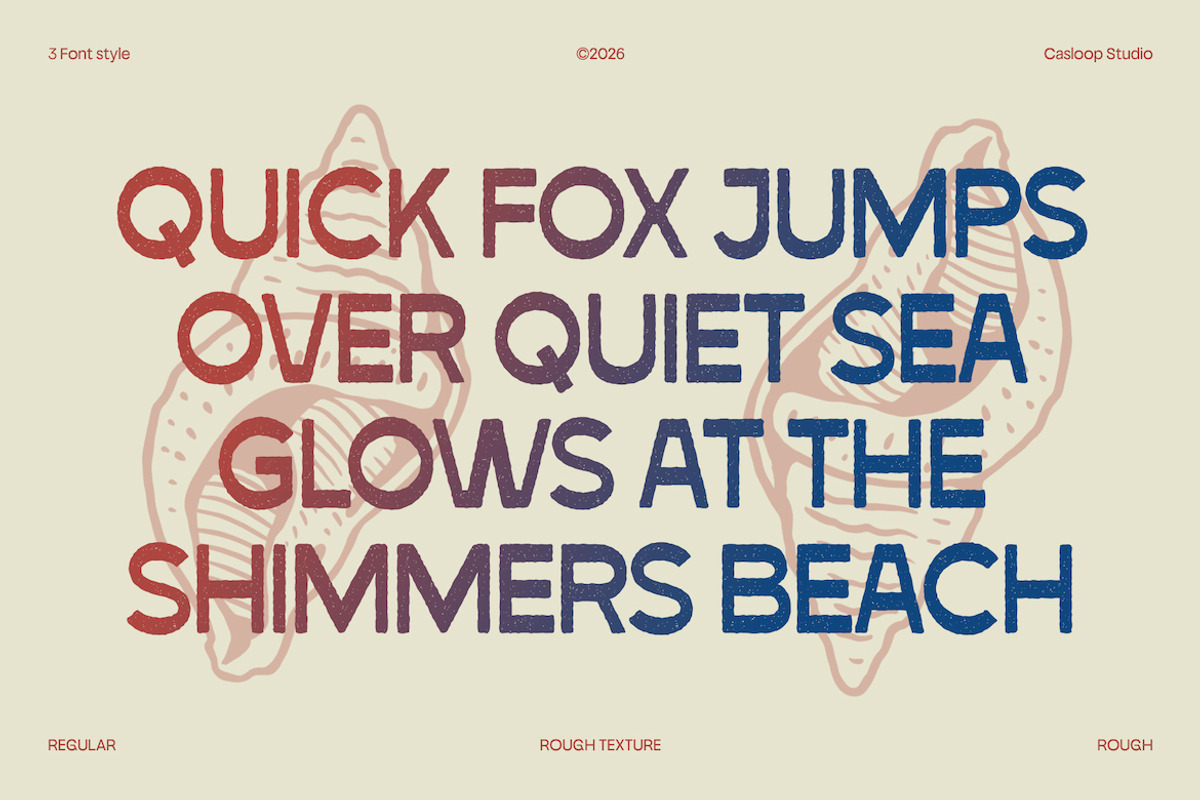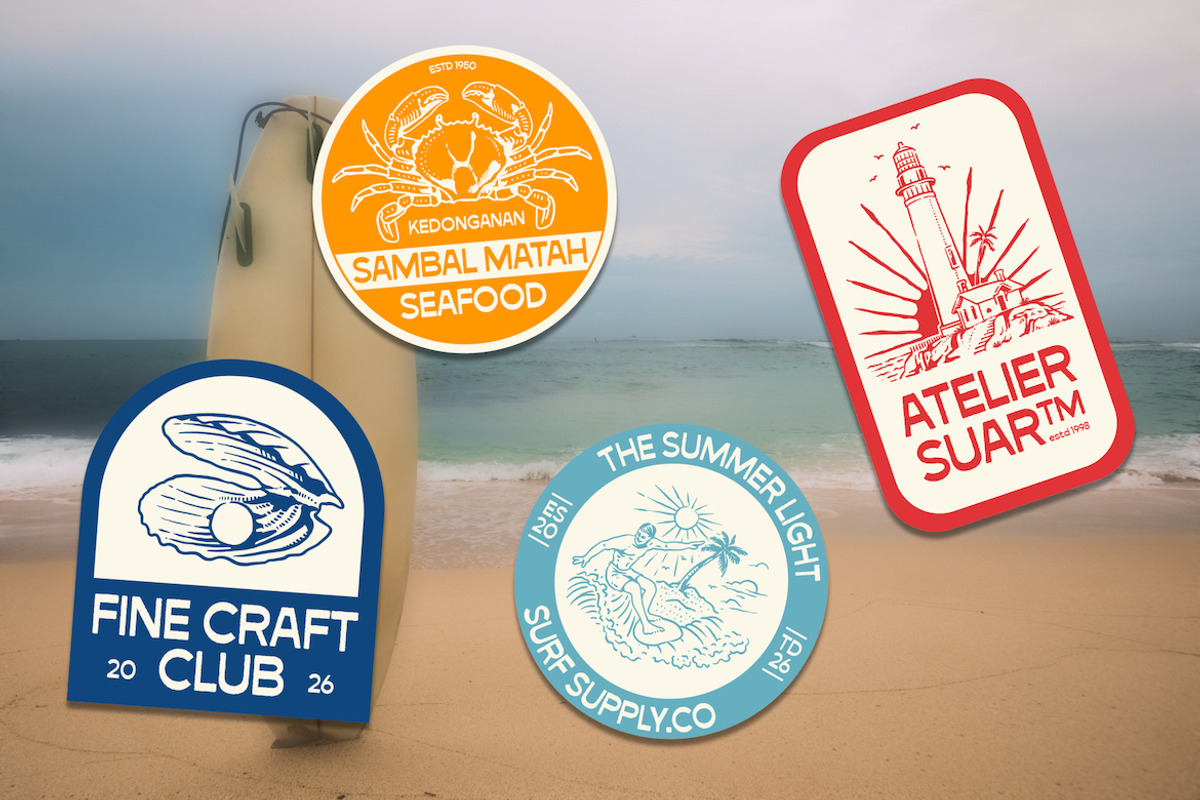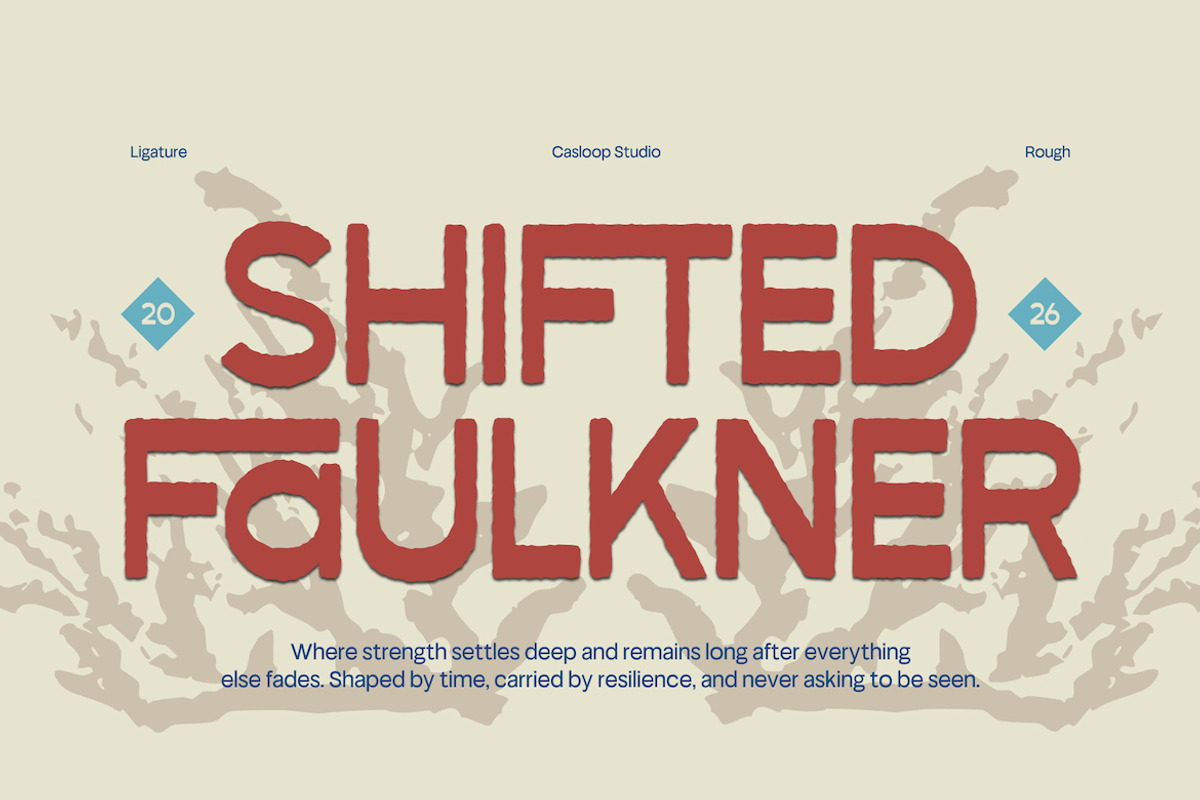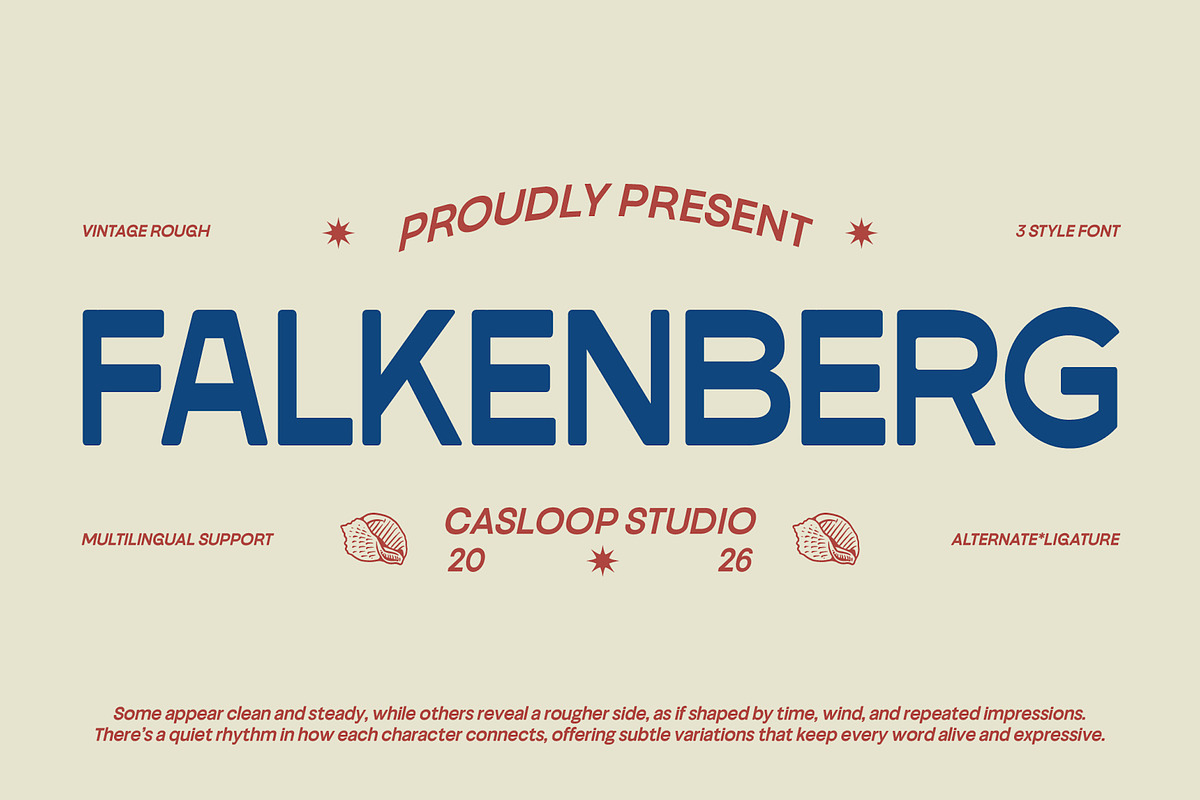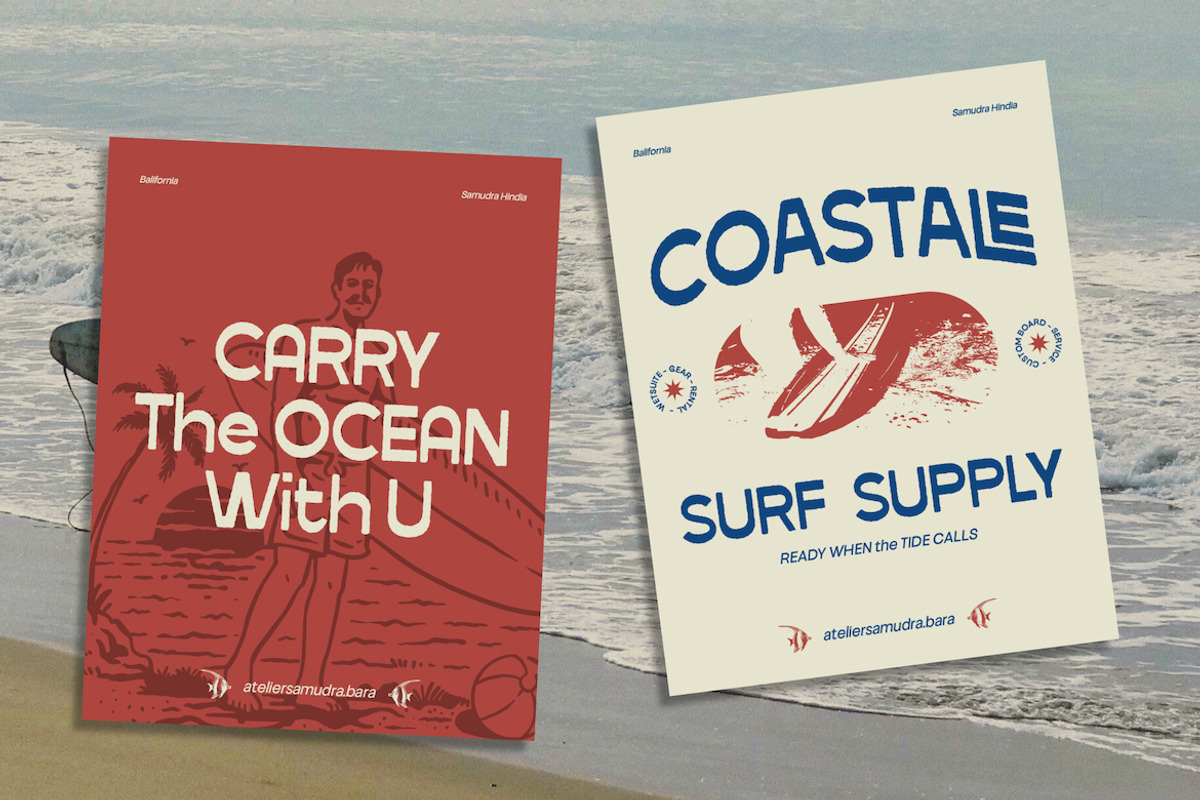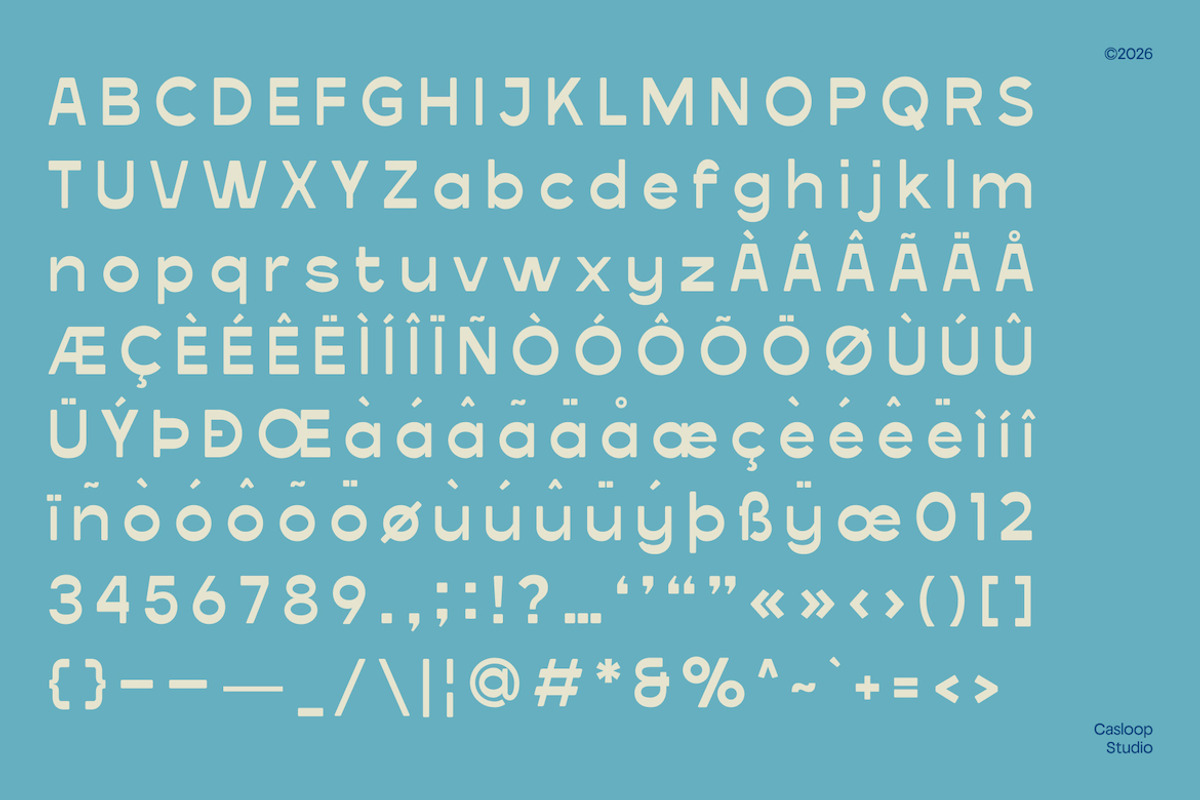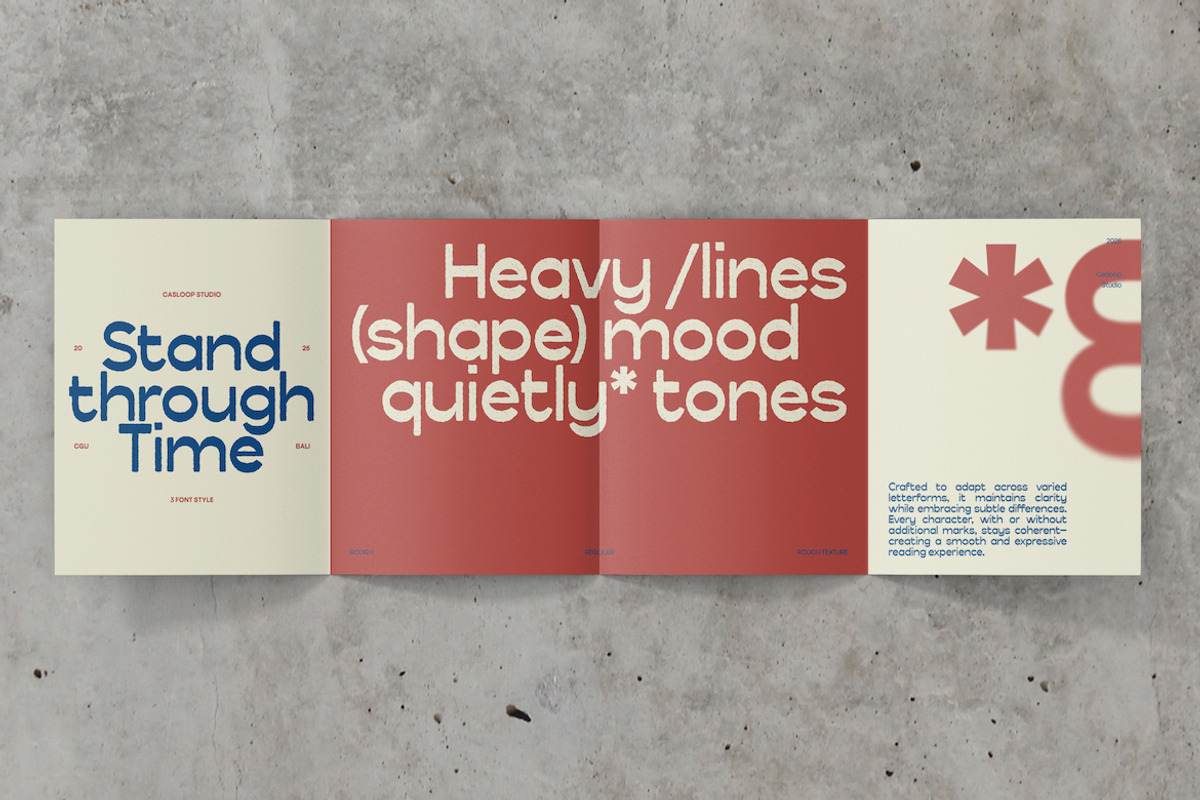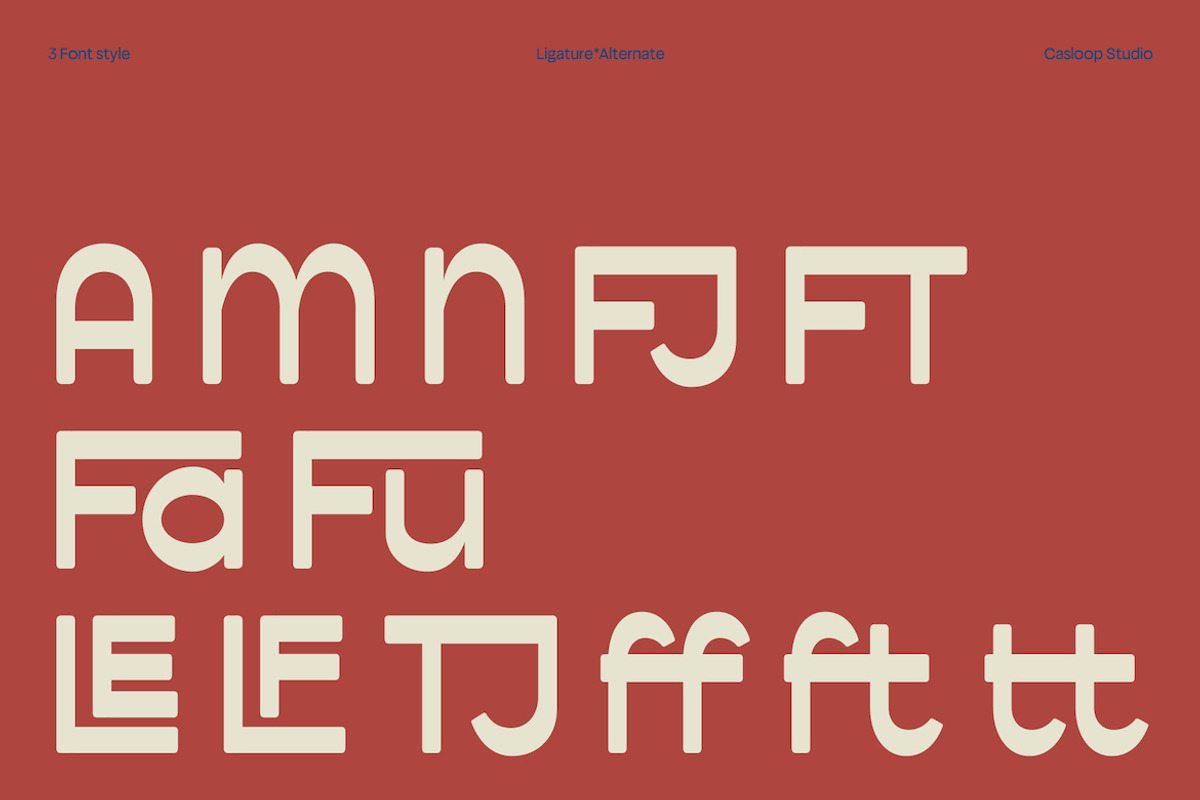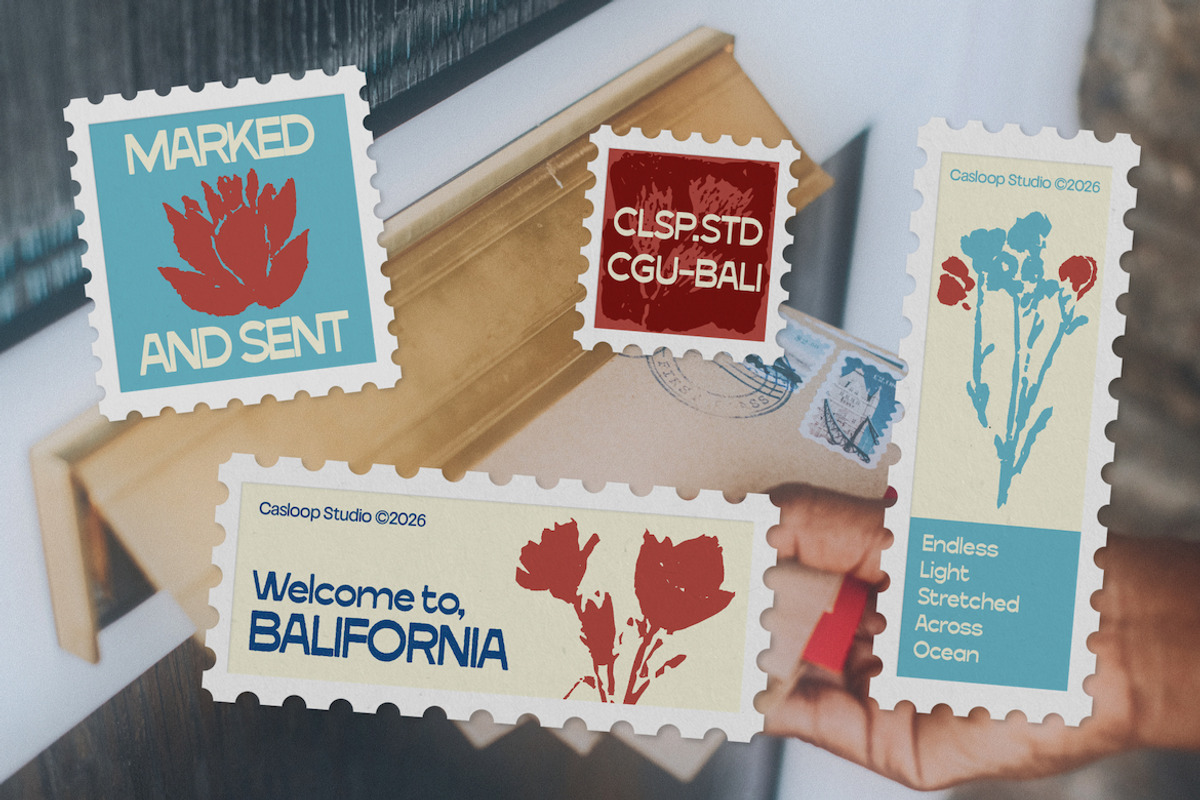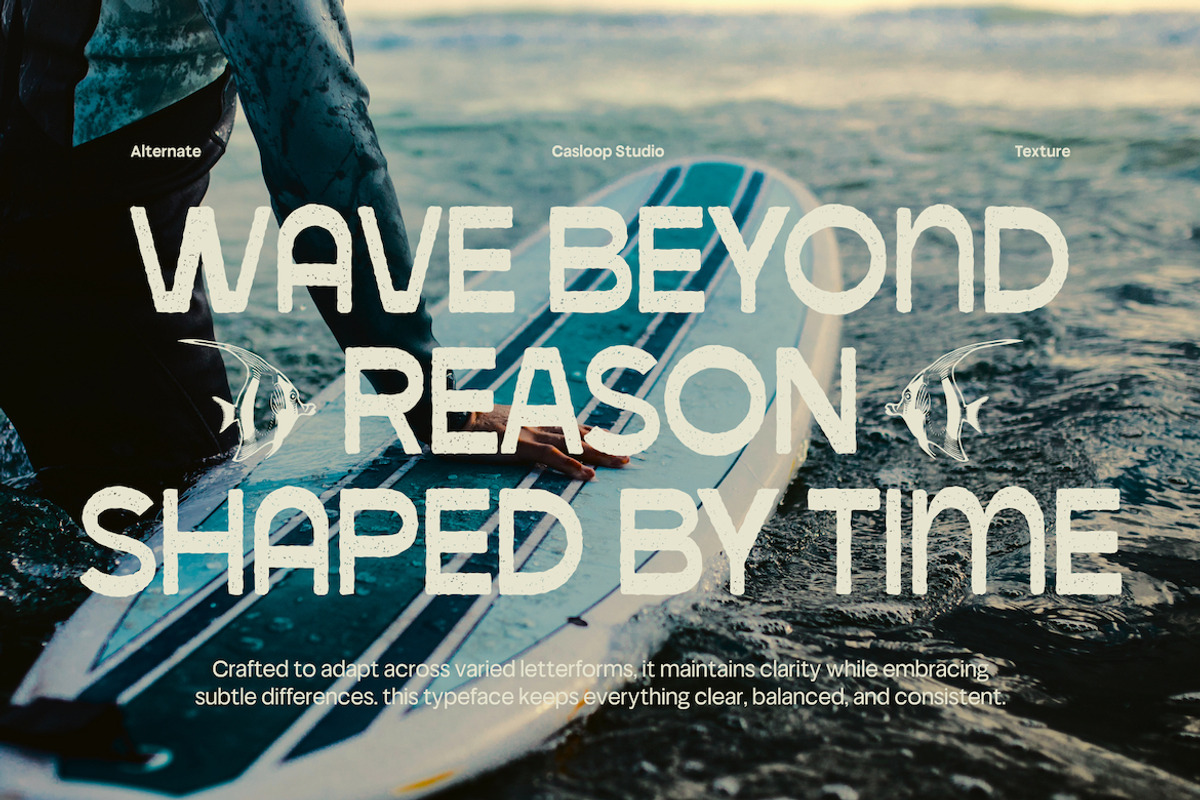
Falkenberg – Vintage Rough Display
Falkenberg is a vintage rough display font inspired by classic American signage and worn print textures, delivering a bold yet authentic visual presence. Its standout characters A, R, K, S, and G are built with solid structures and subtly rounded edges, intentionally avoiding perfect precision to create a natural, weathered feel. The slightly uneven stroke rhythm adds a sense of age and texture, giving the typeface a lived-in personality that feels both stable and expressive. This makes Falkenberg ideal for badges, posters, stamps, adventure-themed branding, and headline designs that aim to capture a raw, nostalgic, and timeless spirit. Recommended pairing with Oswald, Bebas Neue, Roboto Slab, Franklin Gothic, Trade Gothic, Rockwell